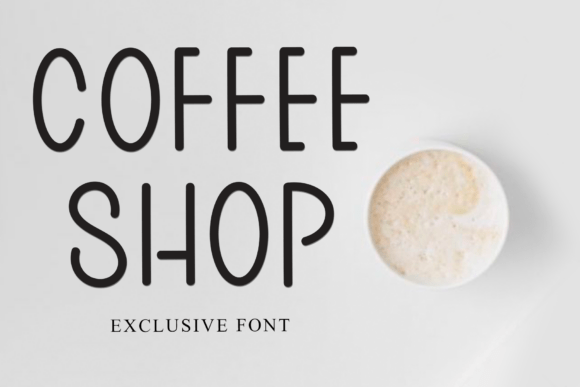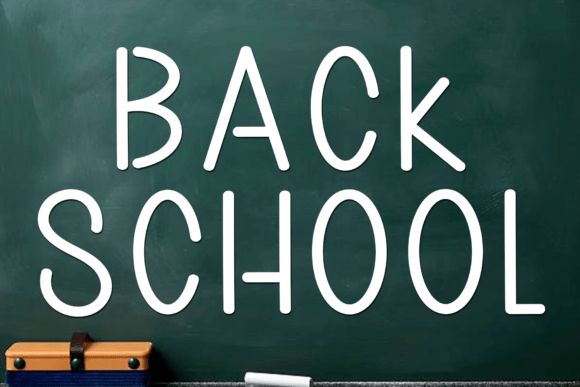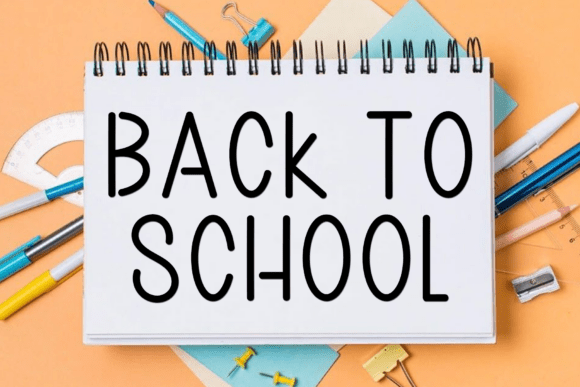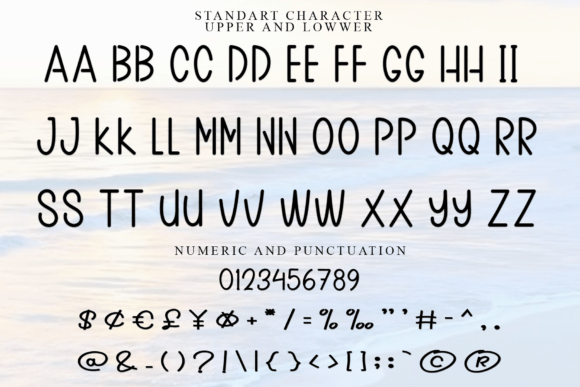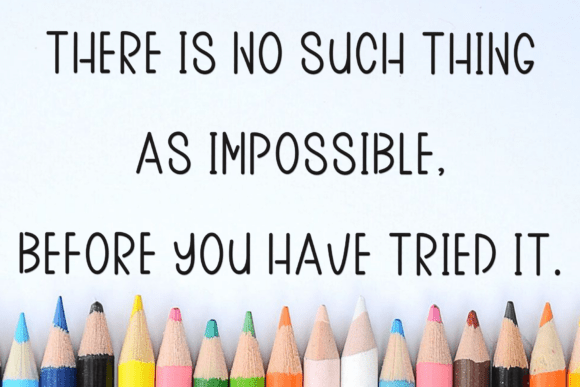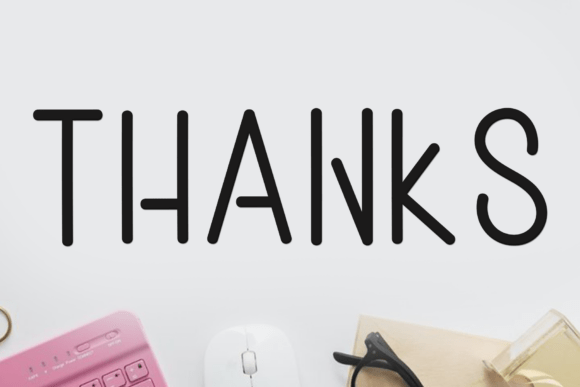
Introducing Designer Writing Font: The Ultimate Holiday Typeface
Are you looking for a font that captures the essence of the holiday season? Do you want to add a touch of magic to your designs and make them stand out? Look no further than Designer Writing Font, a festive and merry typeface that’s perfect for greeting cards, gift tags, and holiday-themed projects.
Designer Writing Font is a beautifully crafted typeface that’s designed to evoke the spirit of the holiday season. With its decorative elements and whimsical flair, it’s the perfect way to add a touch of enchantment to your designs. Whether you’re creating greeting cards, gift tags, or holiday-themed projects, this font is sure to bring a cheerful and nostalgic ambiance to your words.
Designer Writing Font is a versatile typeface that’s perfect for designers and crafters alike. Whether you’re creating digital designs or handmade crafts, this font is easy to use and adds a professional touch to your work. With its PUA encoding, you can access all of the amazing glyphs and ligatures with ease, making it simple to create beautiful and intricate designs.
Key Features of Designer Writing Font
- Festive and Merry Design: Designer Writing Font is designed to capture the spirit of the holiday season, with decorative elements and whimsical flair.
- PUA Encoded: This font is PUA encoded, making it easy to access all of the amazing glyphs and ligatures.
- Perfect for Holiday Projects: Designer Writing Font is perfect for greeting cards, gift tags, and holiday-themed projects.
- Easy to Use: This font is easy to use and adds a professional touch to your designs.
Benefits of Using Designer Writing Font
- Adds a Touch of Magic to Your Designs: Designer Writing Font adds a touch of enchantment to your designs, making them stand out from the crowd.
- Saves Time: With its PUA encoding, you can access all of the amazing glyphs and ligatures with ease, saving you time and effort.
- Perfect for Holiday-Themed Projects: Designer Writing Font is perfect for holiday-themed projects, making it a great addition to your design library.
- Easy to Use: This font is easy to use and adds a professional touch to your designs.
Tips and Tricks for Using Designer Writing Font
- Experiment with Different Sizes and Colors: Try out different sizes and colors to see what works best for your design.
- Use it with Other Fonts: Designer Writing Font pairs well with other fonts, so feel free to experiment with different combinations.
- Take Advantage of PUA Encoding: Make sure to take advantage of the PUA encoding to access all of the amazing glyphs and ligatures.
Designer Writing Font is a beautifully crafted typeface that’s perfect for designers and crafters alike. With its festive and merry design, PUA encoding, and ease of use, it’s the perfect way to add a touch of magic to your designs. Whether you’re creating greeting cards, gift tags, or holiday-themed projects, this font is sure to bring a cheerful and nostalgic ambiance to your words. So why wait? Download Designer Writing Font today and let your typography shine with the magic of Beautiful Font!